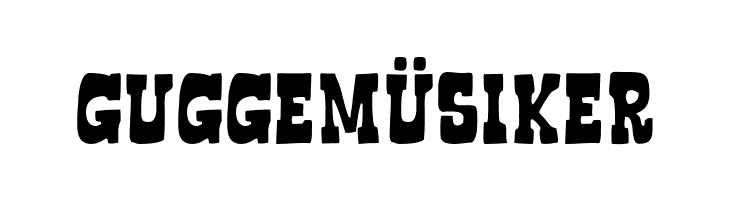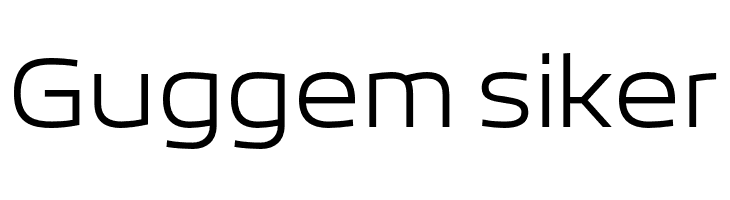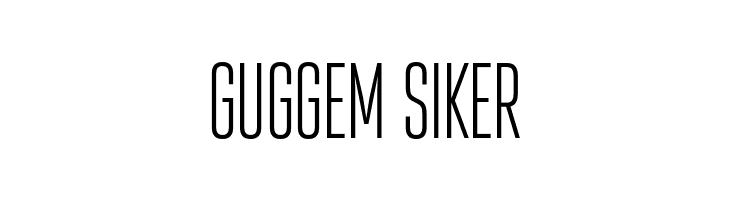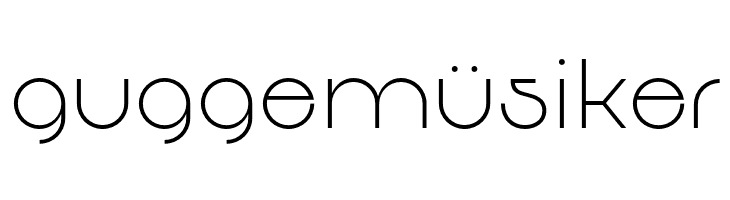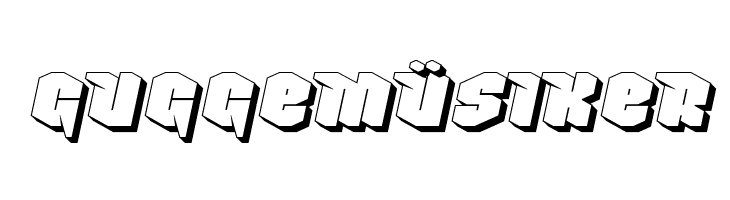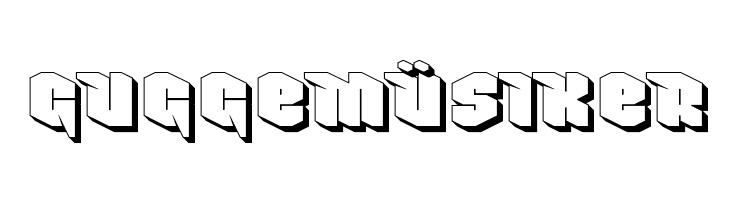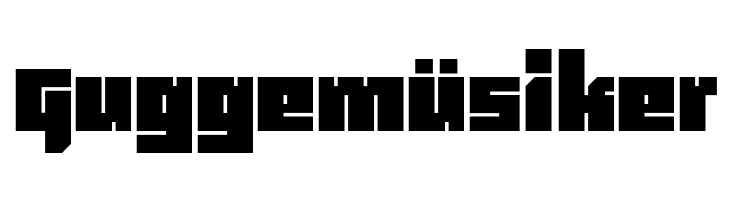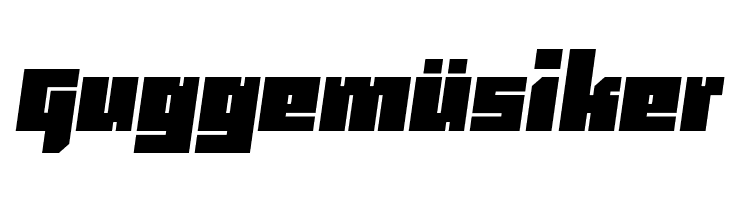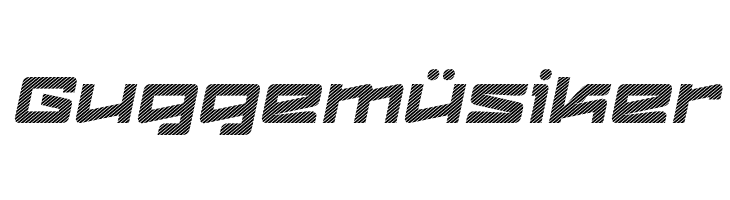
A bold, geometric font with a blocky, pixelated design.
A bold, italicized font with a dynamic and futuristic style.
A modern, rounded font with a futuristic and sleek design.
A bold, playful font with exaggerated serifs and a hand-crafted look.
A modern, geometric sans-serif font with balanced spacing and clear legibility.
An ultra-light, tall, and narrow font with a modern, minimalist style.
A modern, geometric sans-serif font with a clean and minimalist design.
A bold, three-dimensional font with a shadow effect and italic style, perfect for attention-grabbing designs.
A bold, three-dimensional font with shadow effects, combining retro and modern styles.
A bold, geometric font with strong, angular lines and a modern aesthetic.
A bold, angular font with a dynamic, geometric style.
A dynamic, striped, italic font with a modern and bold appearance.
A bold, extruded, and italic font with a futuristic 3D effect.
A bold, italicized font with a modern, angular design.
A bold, extruded font with a 3D effect and geometric structure.
A bold, geometric font with a futuristic and edgy design.
A bold, geometric font with diagonal stripes, ideal for striking display use.
A classic serif font with elegant, elongated letterforms and high contrast strokes.
A bold, grunge-style font with a distressed texture and dynamic appearance.
A decorative and geometric font with elongated, slender letterforms.
A tall, narrow font with elongated, thin letterforms and a modern aesthetic.
A bold, Gothic-inspired font with sharp serifs and dramatic styling.
An ornate and decorative font with elongated serifs and intricate details.
A bold, rounded font with a futuristic and playful style.
A bold, rounded font with a modern and friendly style.
A high-contrast, elegant font with a modern and sophisticated style.
A bold, distressed font with a vintage, rugged appearance.
An elegant, flowing script font with graceful curves and sophisticated style.
A bold, dynamic script font with fluid, connected letterforms.
A bold, elegant script font with dynamic, flowing characters.
A fluid and elegant script font with a modern calligraphic style.
A bold, expressive script font with flowing, interconnected letterforms.